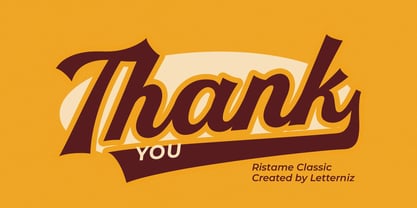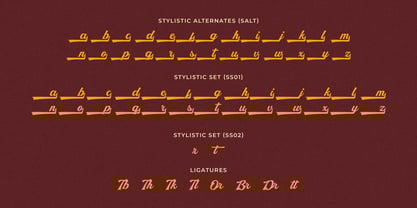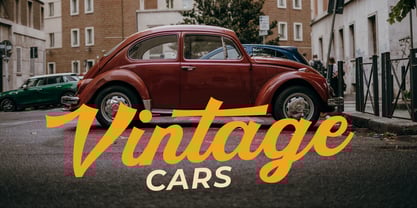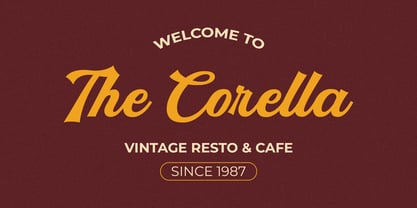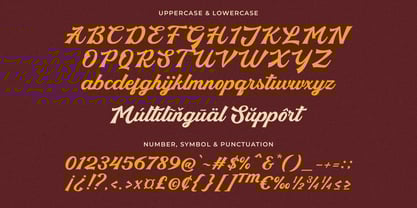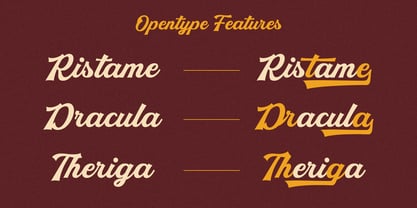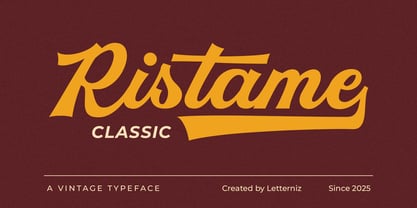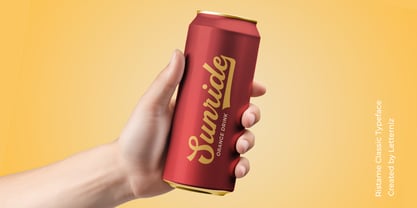
Ristame Classic
by Letterniz
The Ristame Classic Font Family was designed by Nizar Bagas Maulana and published by Letterniz. Ristame Classic contains 1 styles.
Ristame is a lettering retro vintage font, clean and lining brush script. It looks stunning on wedding invitations, thank you cards, quotes, greeting cards, logos, business cards and every other design which needs a handwritten touch. You will get alternate characters such as swash on some characters. Use this Ristame font to add that special modern retro touch to any design idea you can think of!